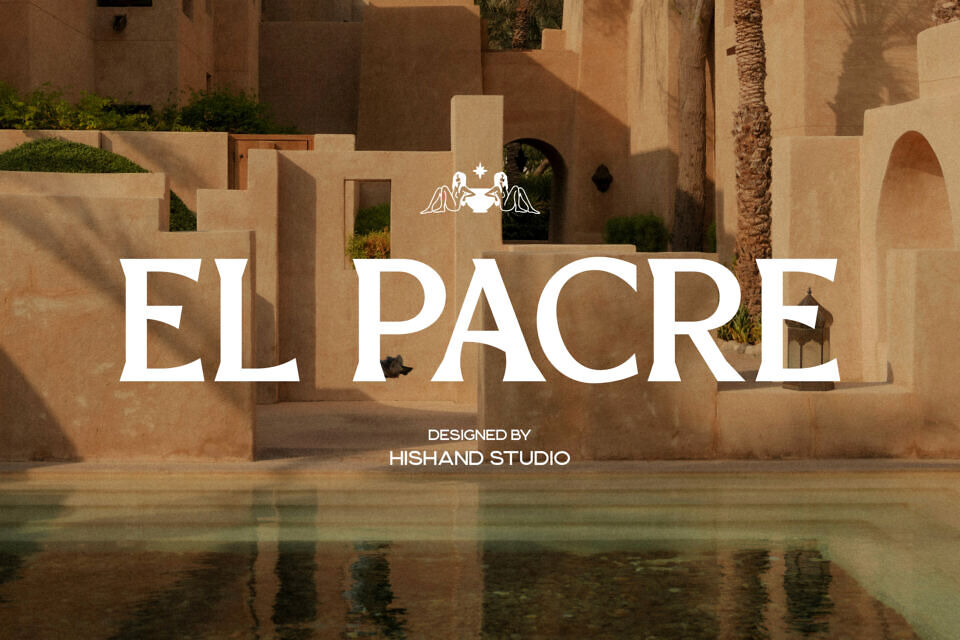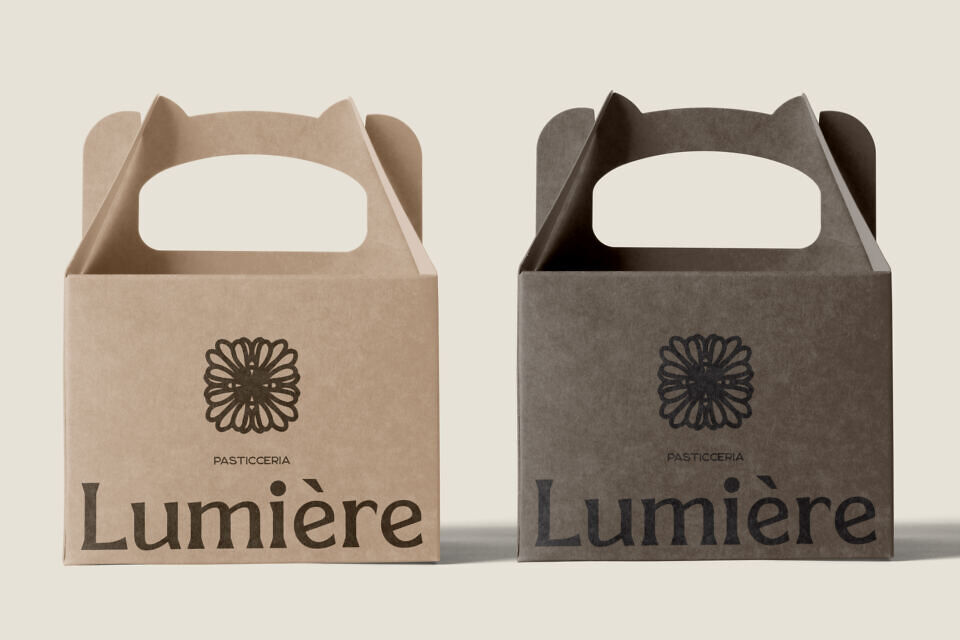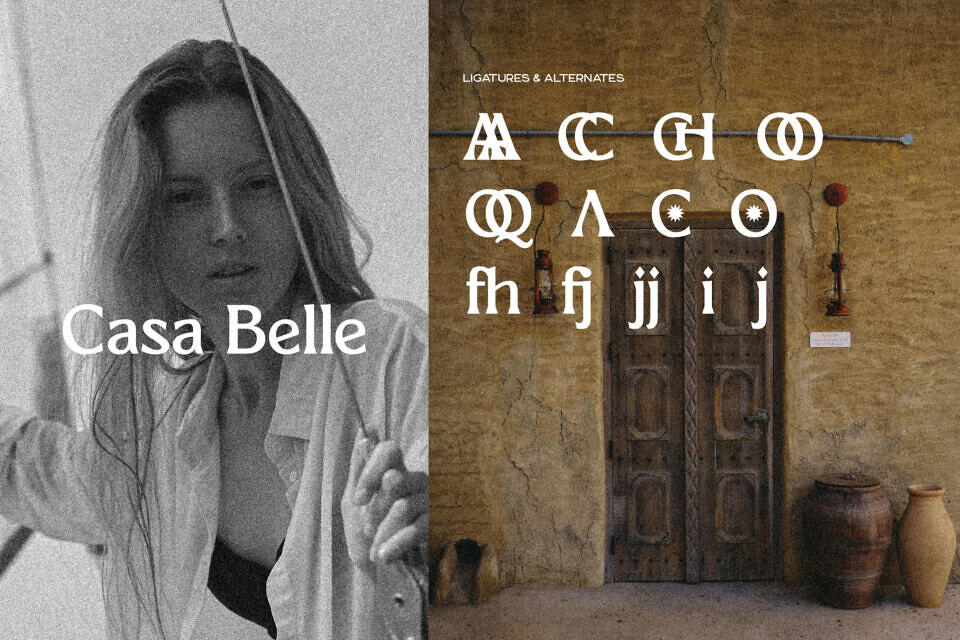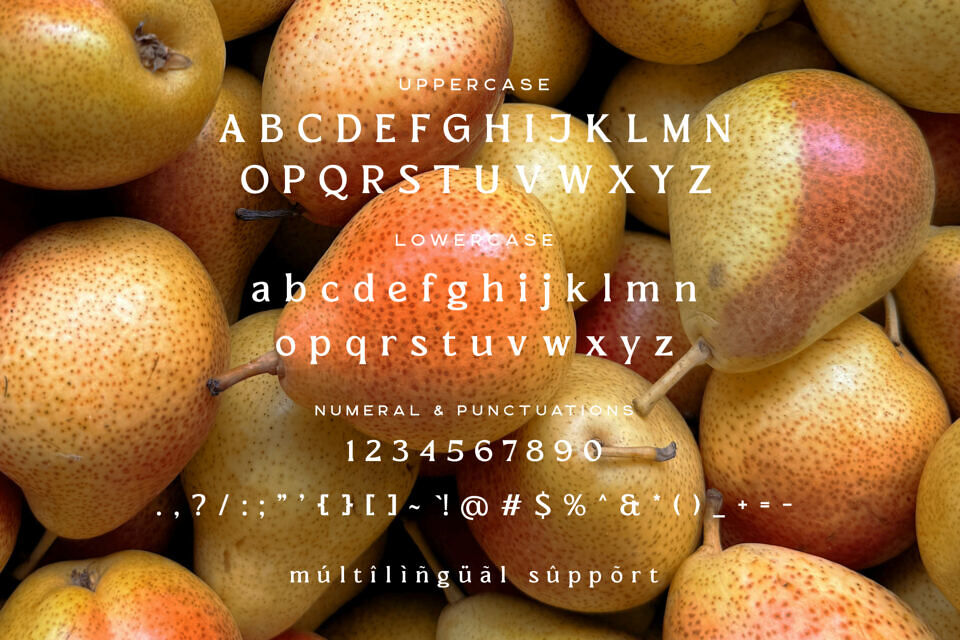
El Pacre Font
El Pacre is a bold and aesthetic display serif font designed to embody luxury, confidence, and timeless beauty. Every curve and detail has been carefully crafted to create a typeface that feels powerful yet refined. With its elegant letterforms and sophisticated proportions, El Pacre instantly elevates any design it touches.
The beauty of El Pacre lies in its perfect balance between tradition and modernity. It combines the classic charm of a serif with contemporary styling, creating a look that feels both timeless and fresh. The striking contrast between thick and thin strokes gives each letter a sense of rhythm and grace, making the font stand out effortlessly in any setting. Whether it’s used for logos, fashion branding, packaging, or magazine headlines, El Pacre delivers a luxurious visual experience that captures attention.